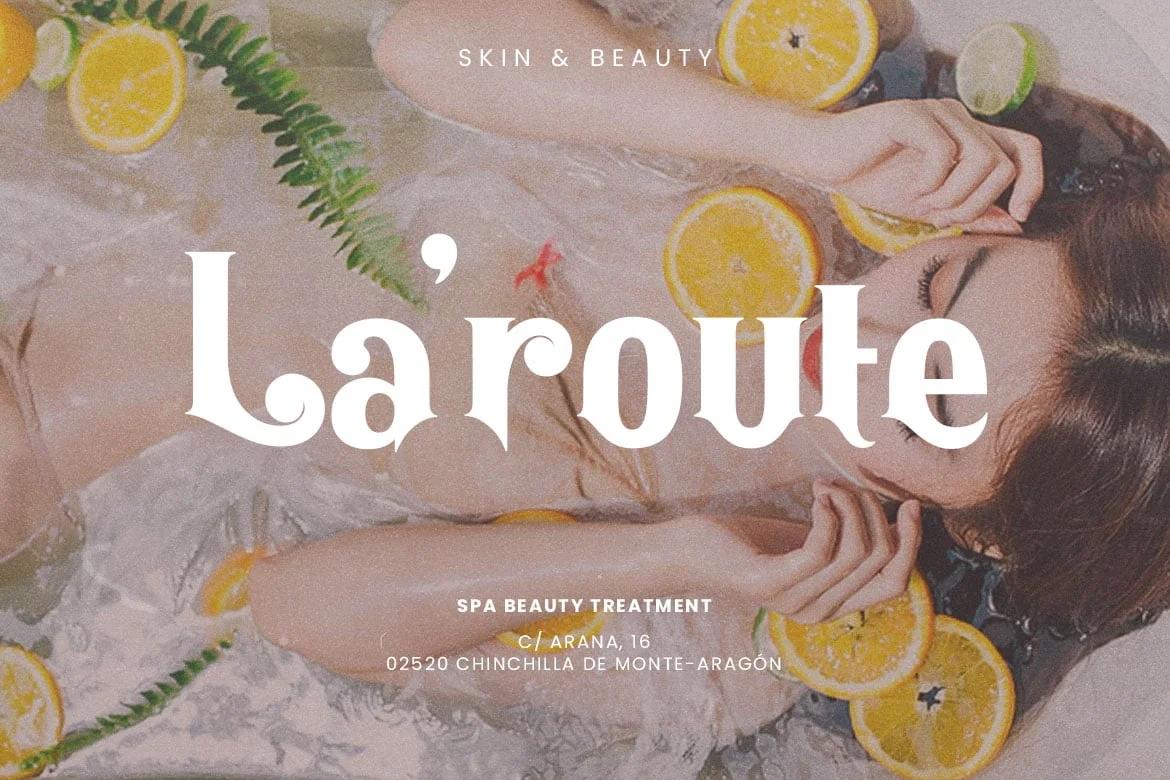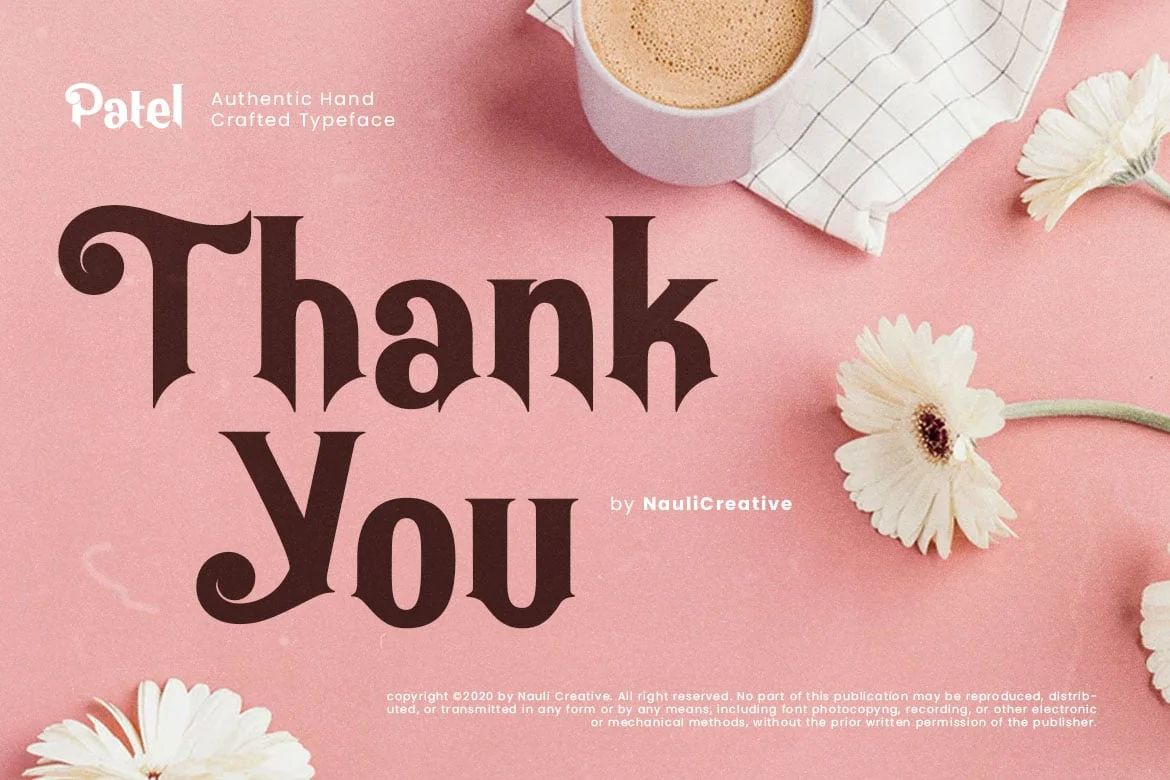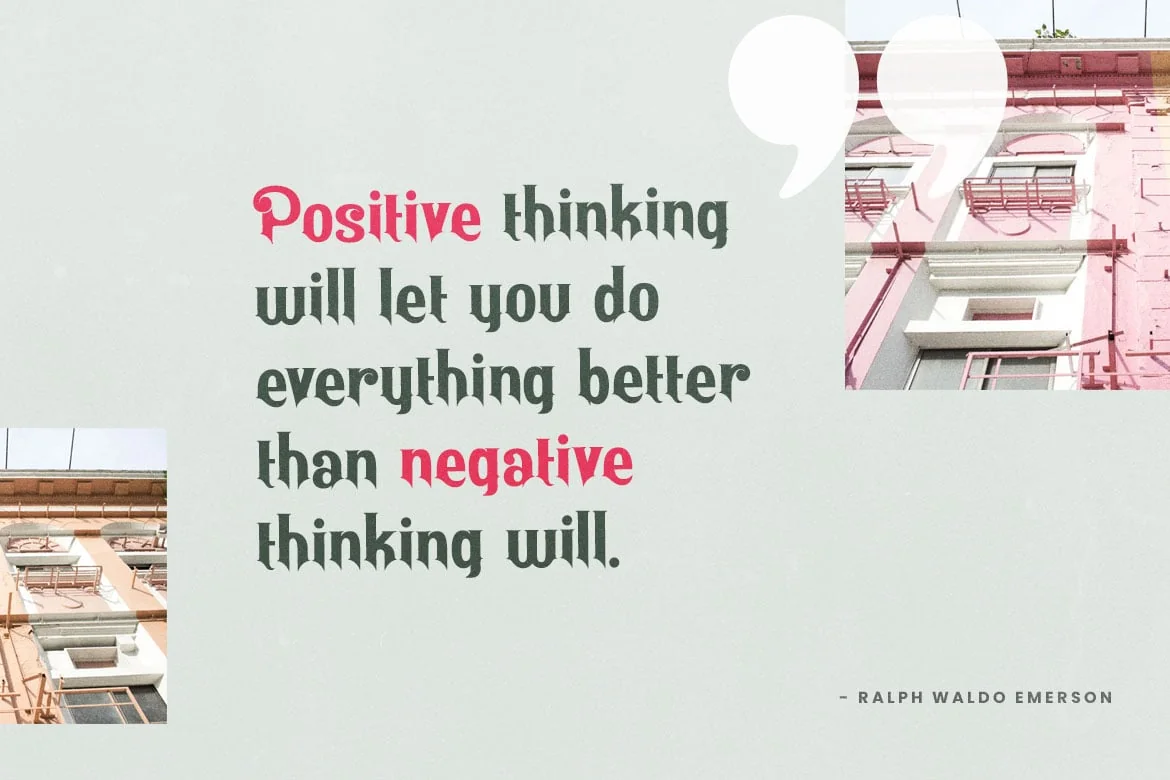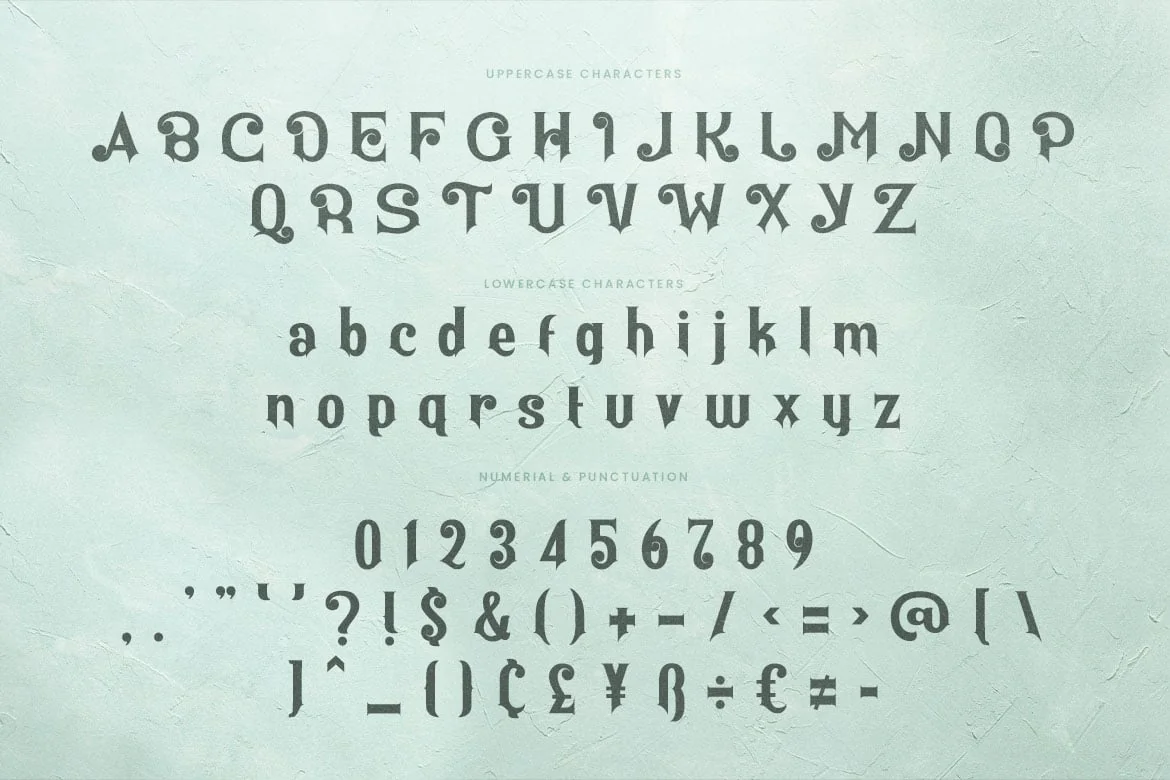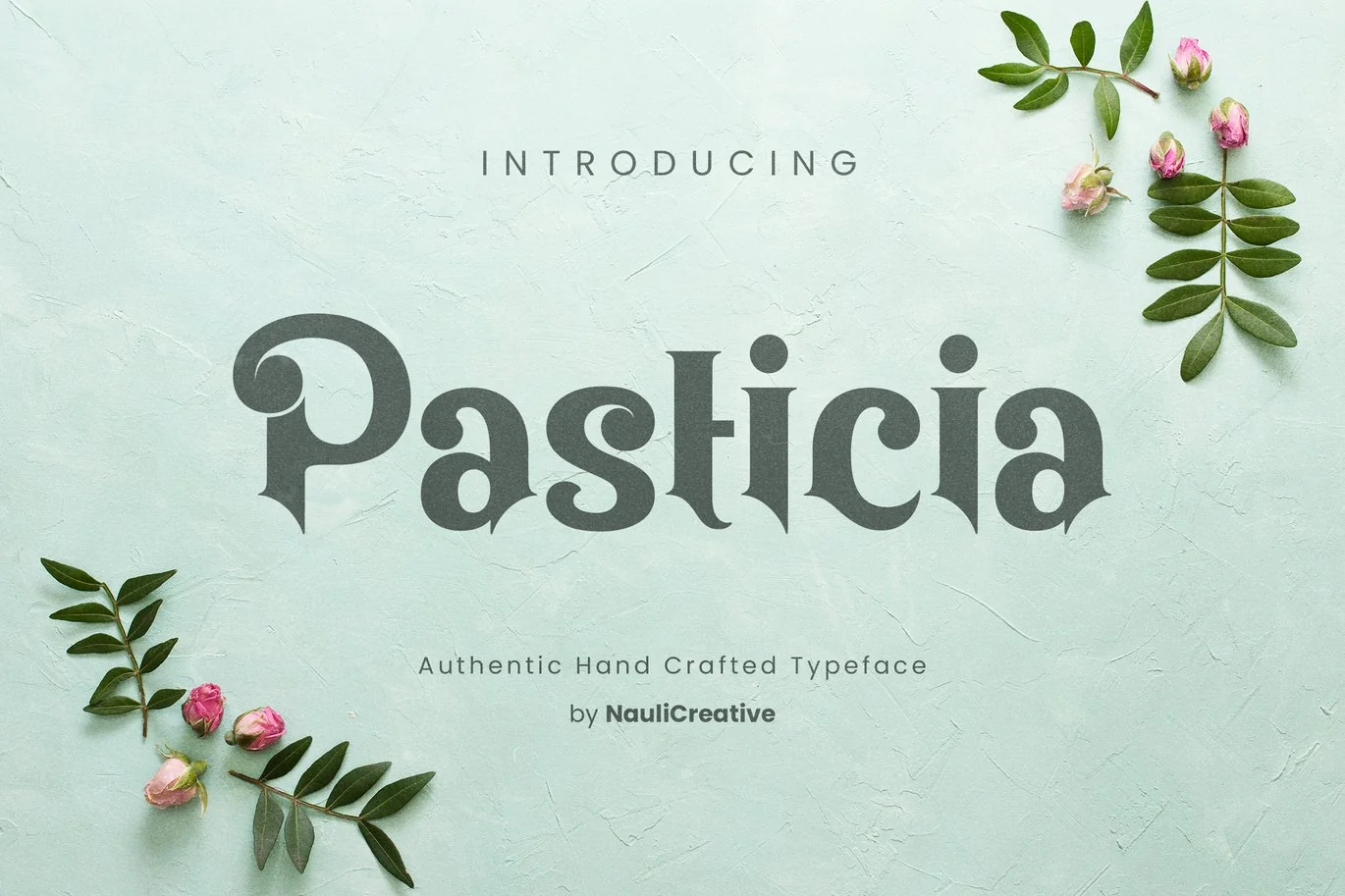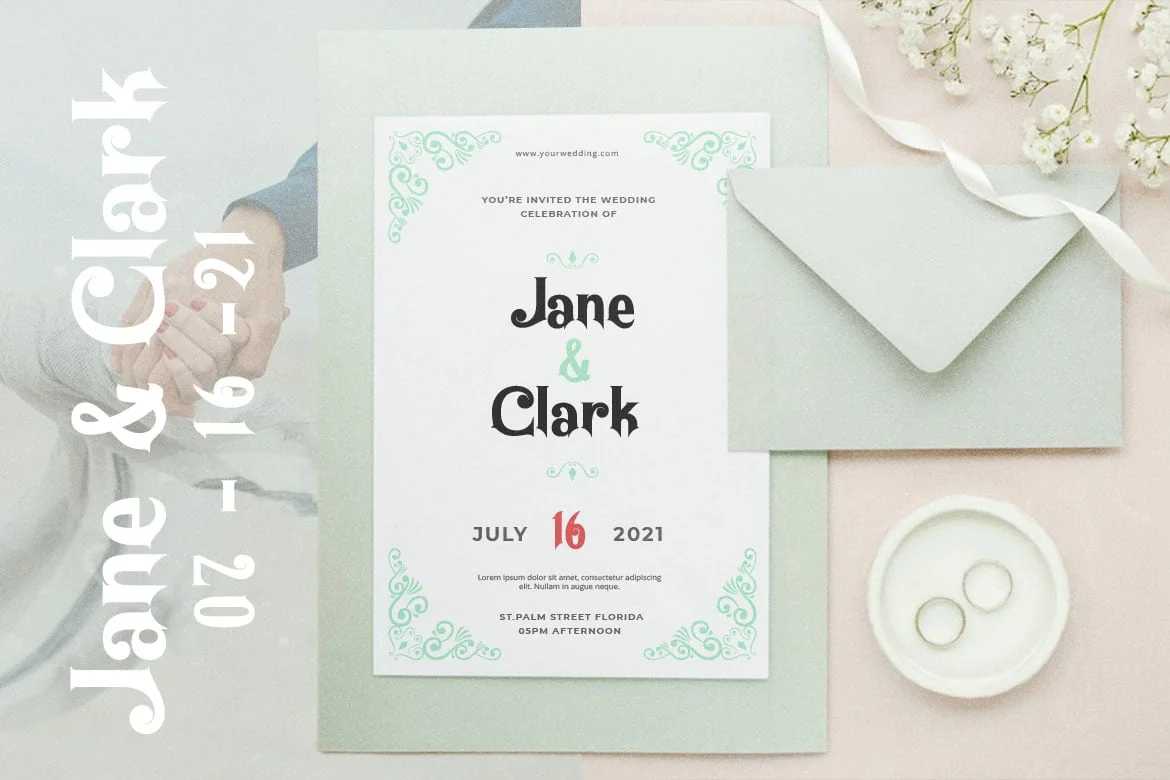
Pasticia – Elegant Decorative Typeface
Are you looking for a elegant unique decorative font that have a unique beauty feeling? We can help! Try to download our pasticia font. The font is suitable to use for all purpose. Try to use it on banner ads, event, greeting card, poster, postcard, photography, branding, editorial, quote, music, movie title, travelling, garage, and many more to see the best of it 🙂